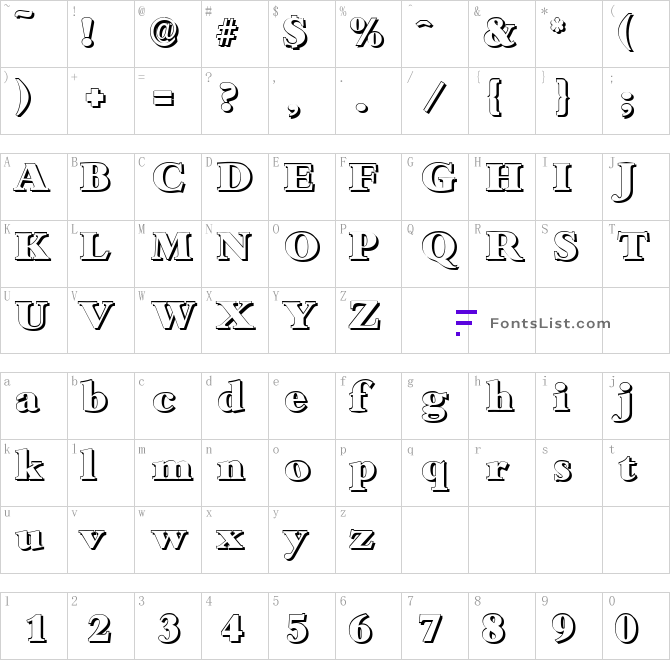
- Font Name:BambergShadow-Heavy
BambergShadow-Heavy-Regular.ttf is a very beautiful artistic font, BambergShadow-Heavy-Regular.ttf is widely used in the design and printing of various books and pictures,BambergShadow-Heavy-Regular.ttf has a strong visual impact,BambergShadow-Heavy-Regular.ttf is a commonly used font in newspapers, magazines and books, and is used in posters, e-commerce Poster design, store design, logo design, font design and other fields.BambergShadow-Heavy-Regular.